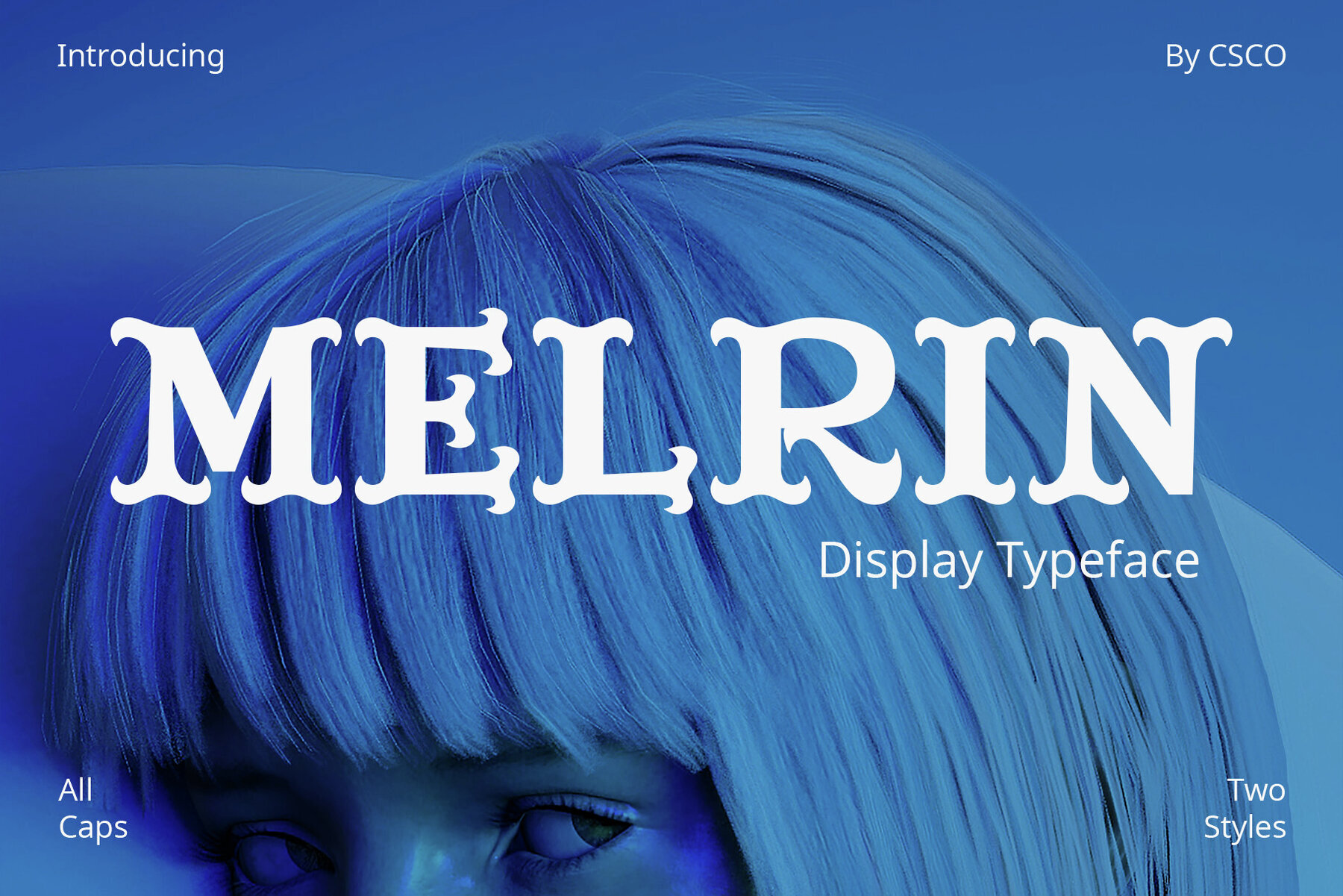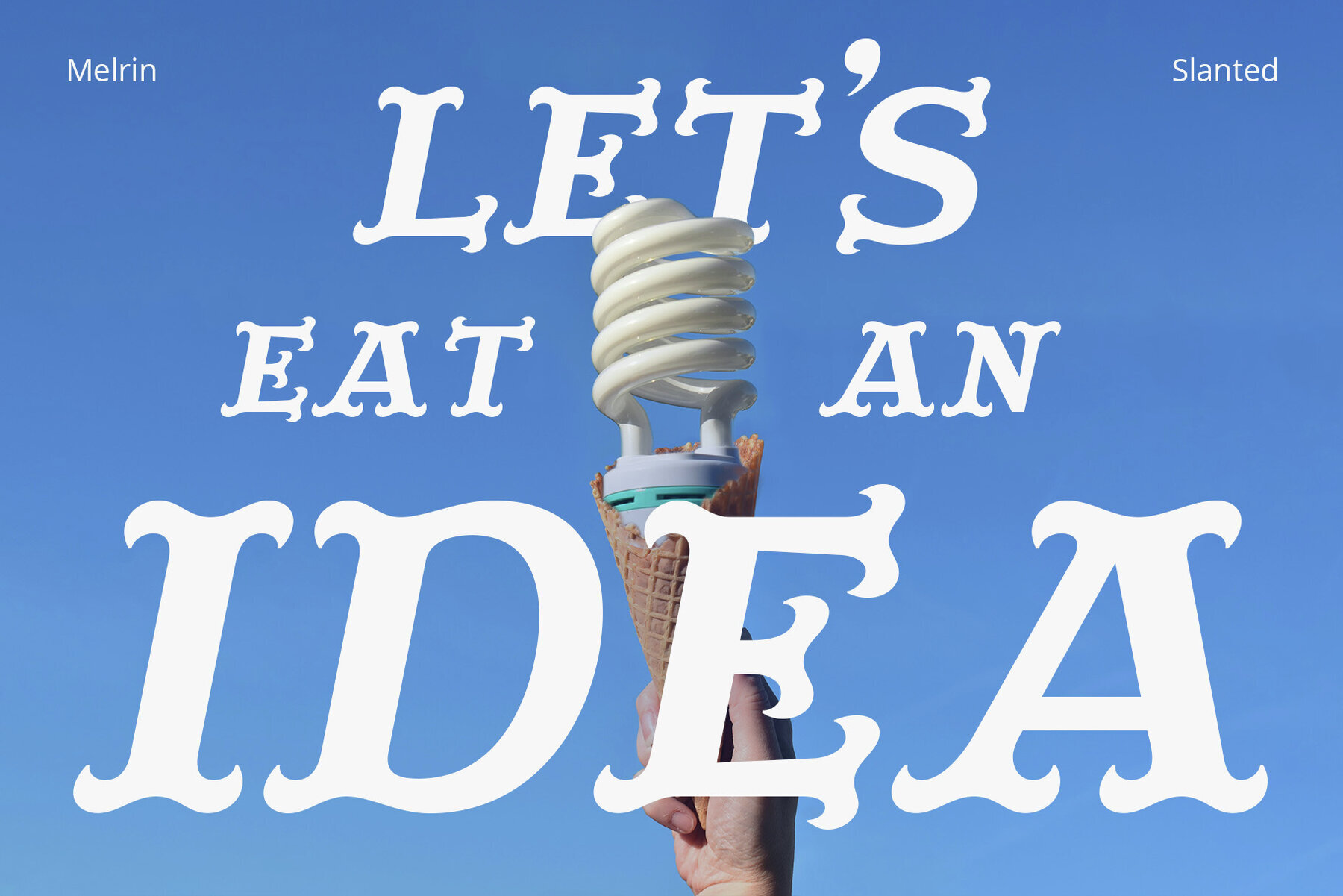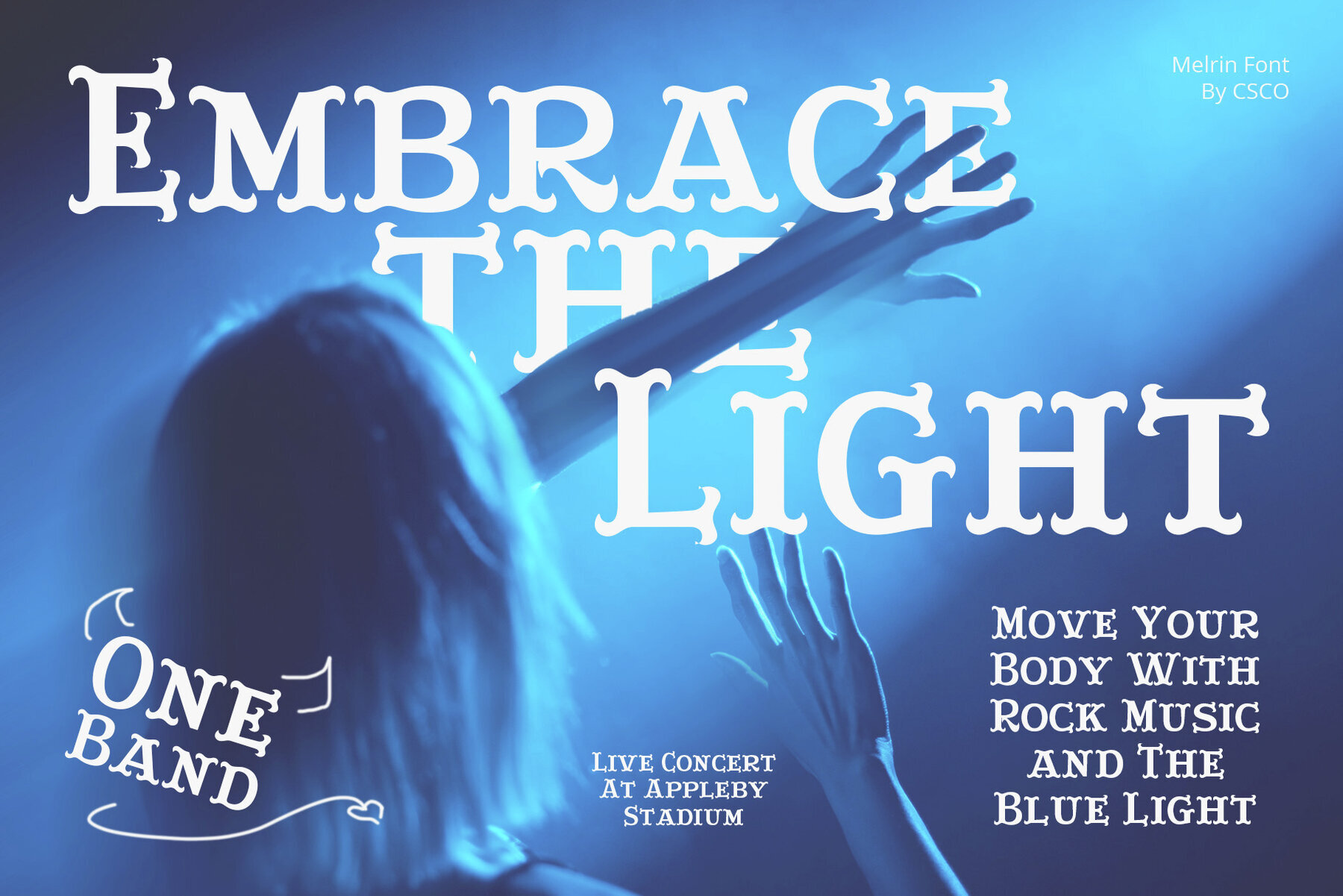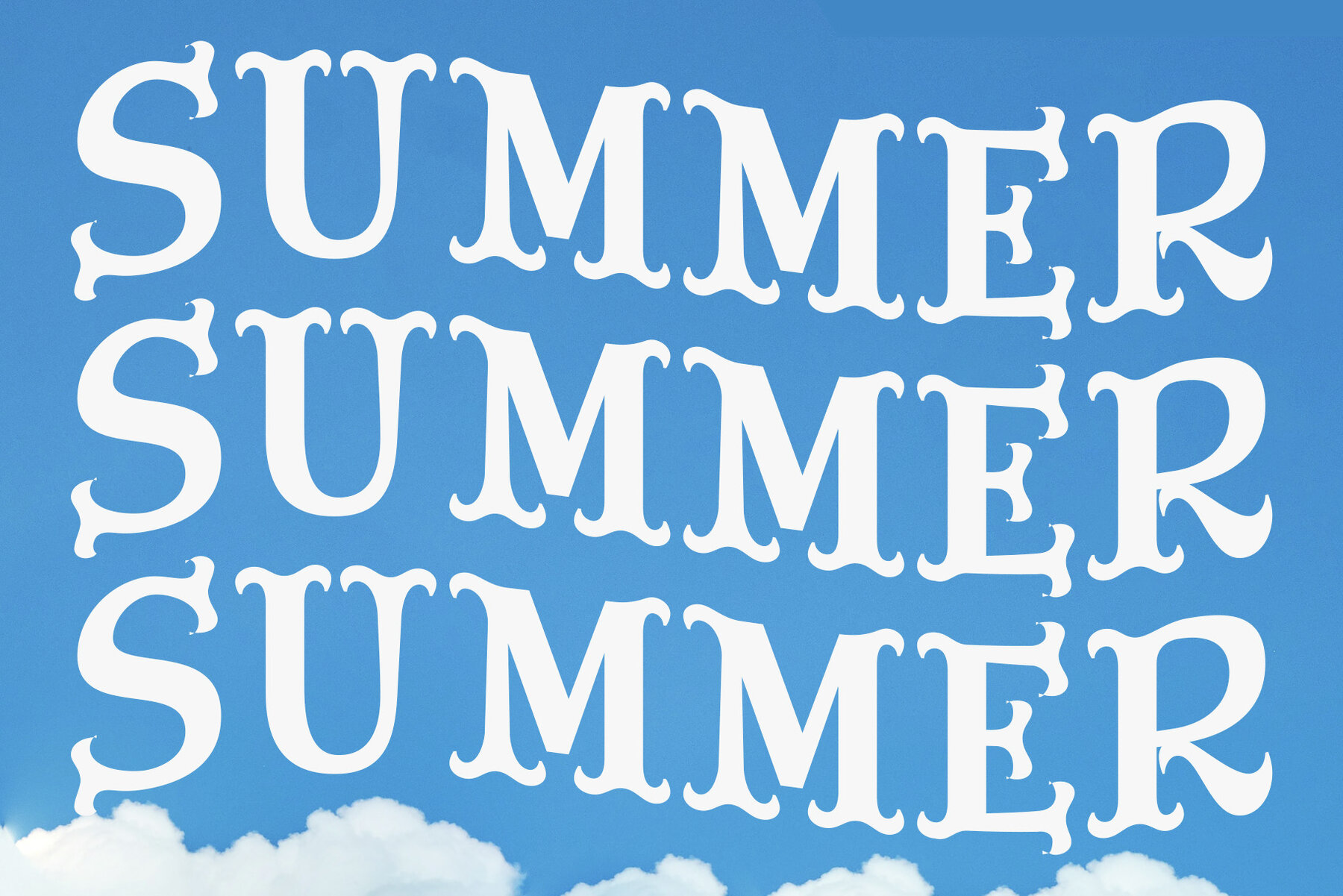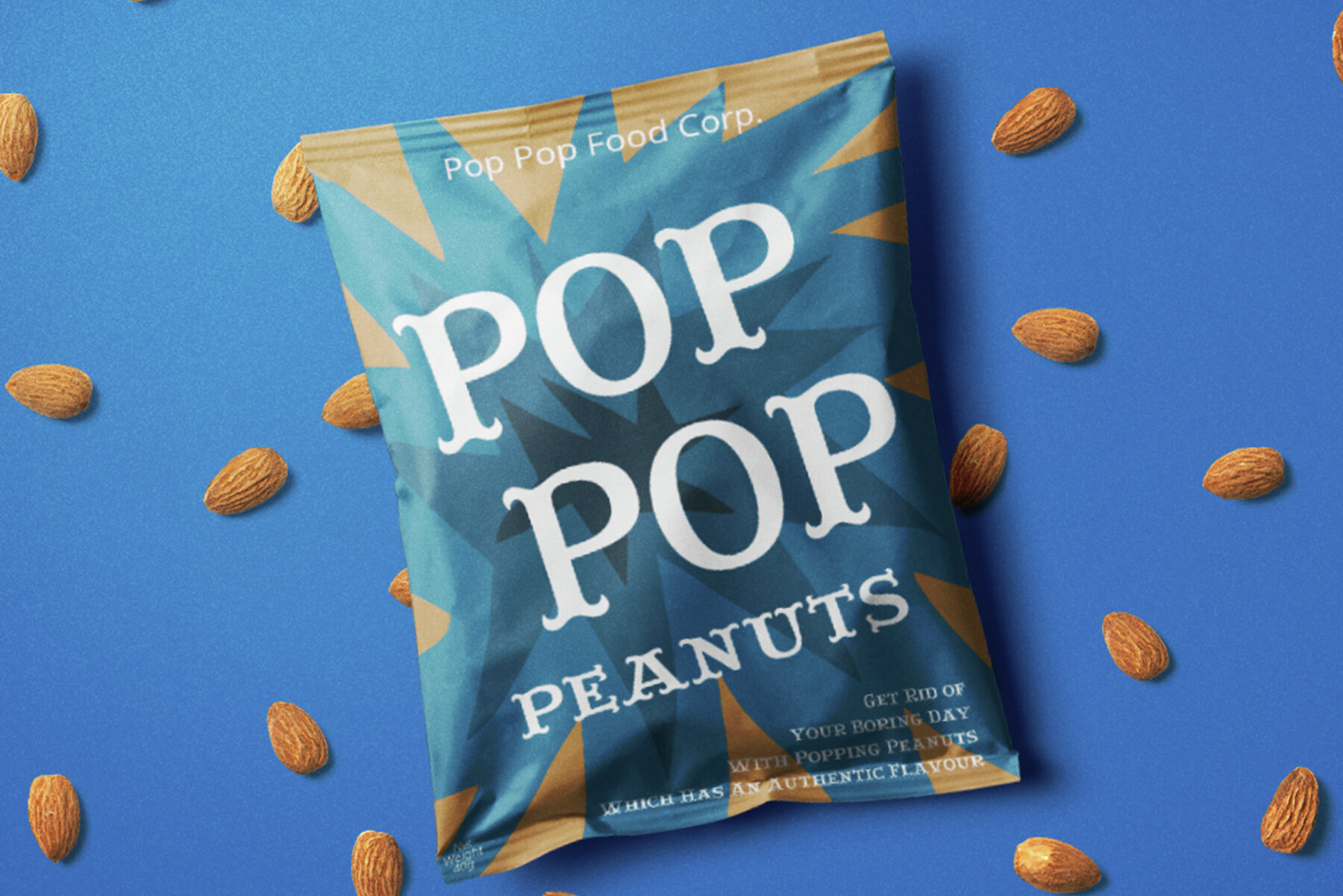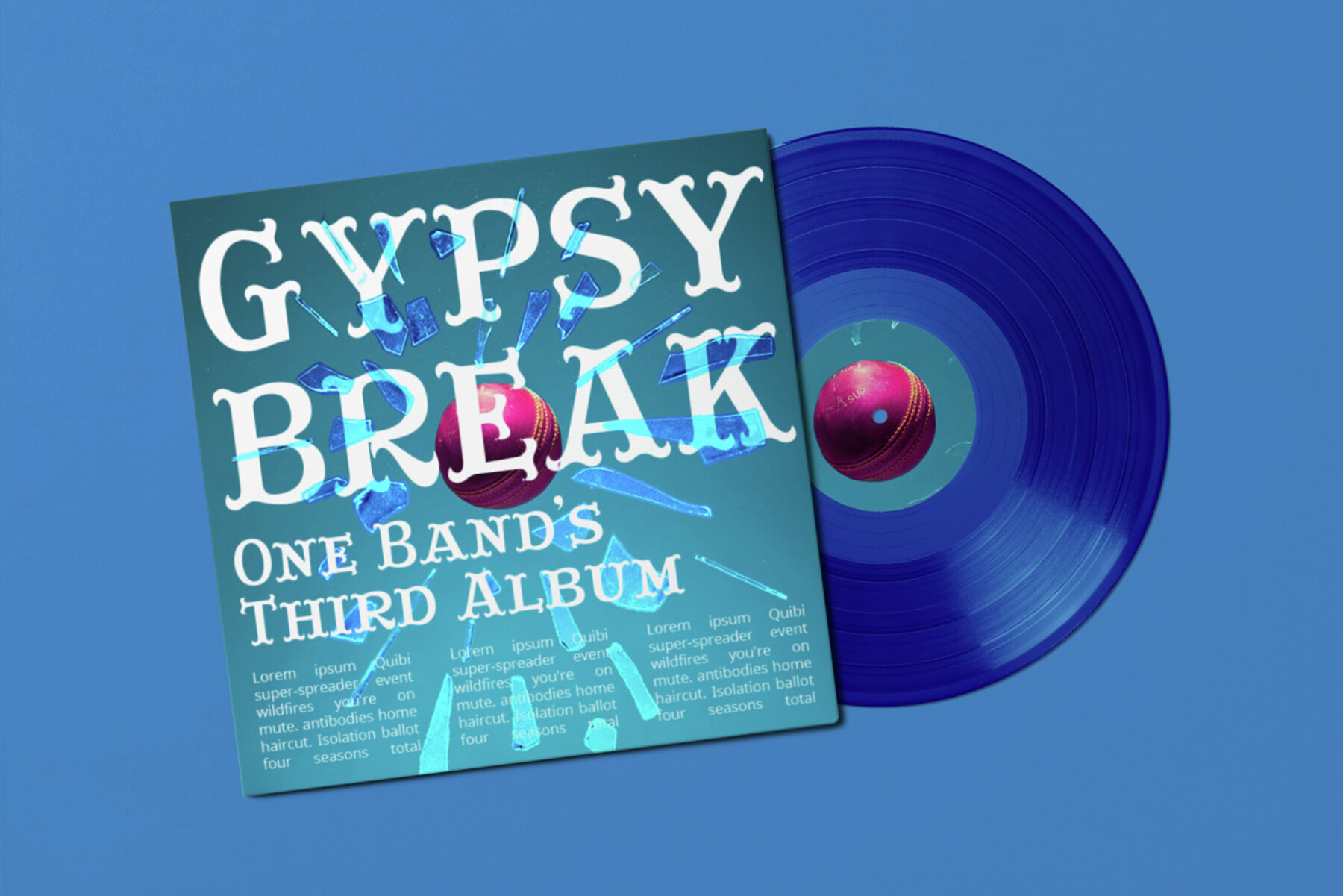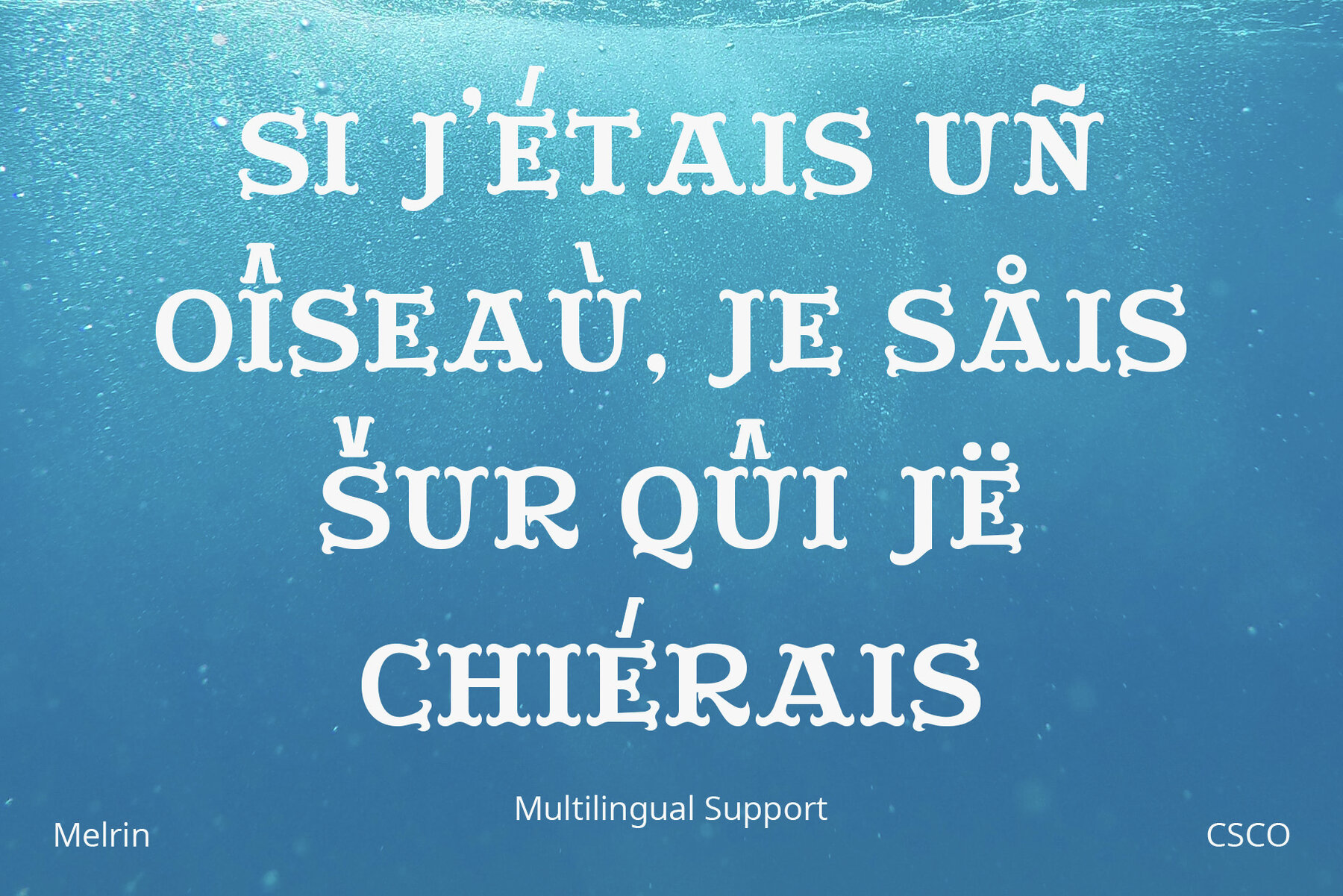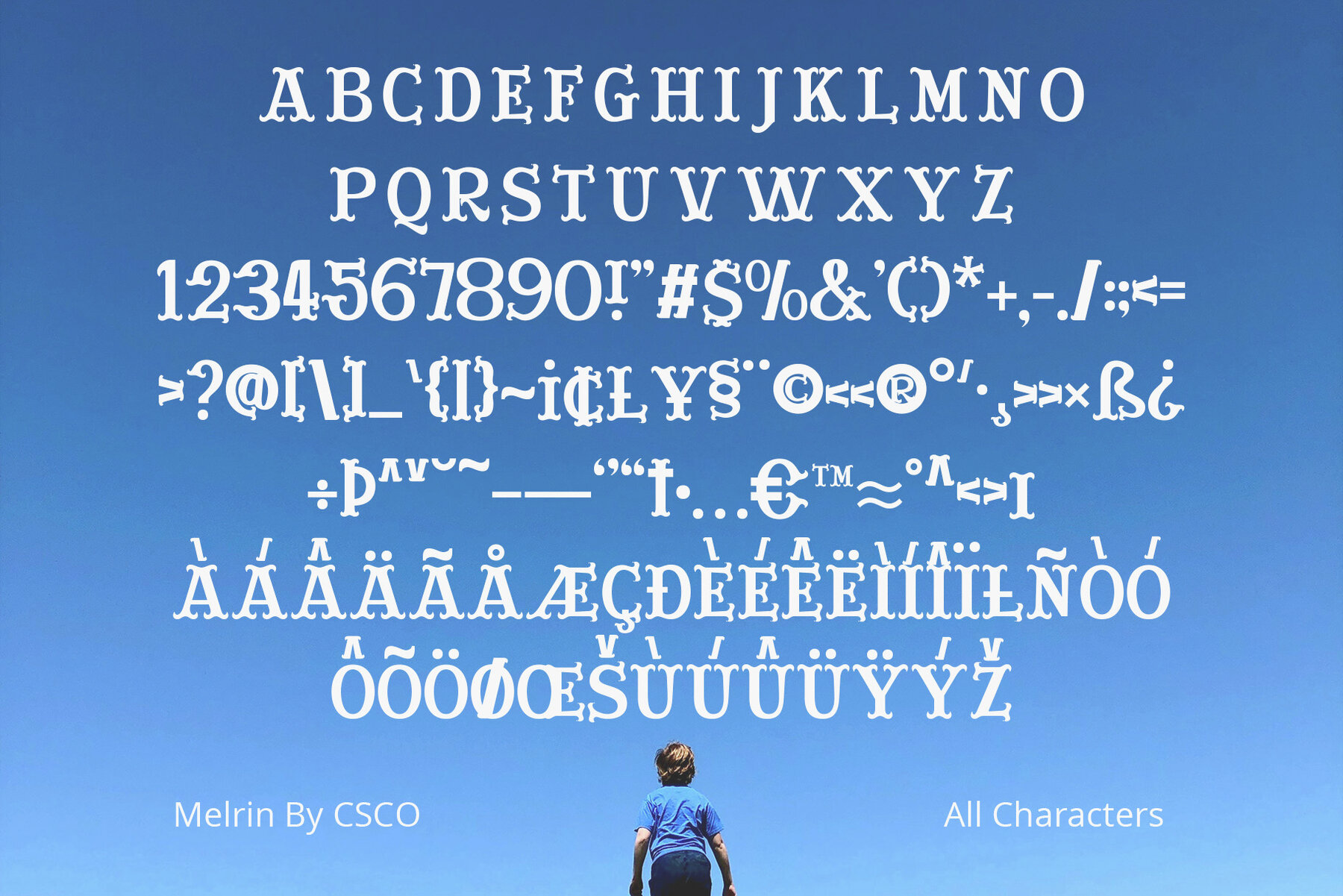
Melrin Font
The Melrin Floral Serif Typeface combines artistic flair with functionality, featuring serifs that bloom like flowers. This display typeface is perfect for retro designs and captures the essence of nostalgia in every character. The unique floral serif accents in Melrin are reminiscent of blooming flowers, making it ideal for projects that require a touch of vintage elegance. Its bold structure embodies strength, while the delicate serifs add a soft, artistic touch.Melrin: Floral Serif Typeface by Craft Supply Co.
Design and Aesthetics